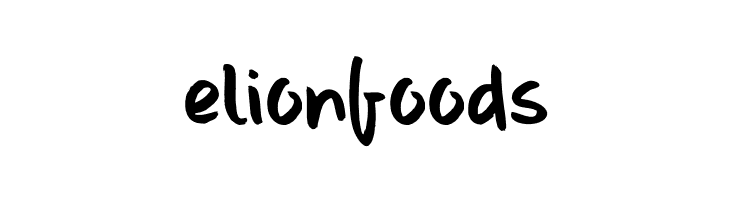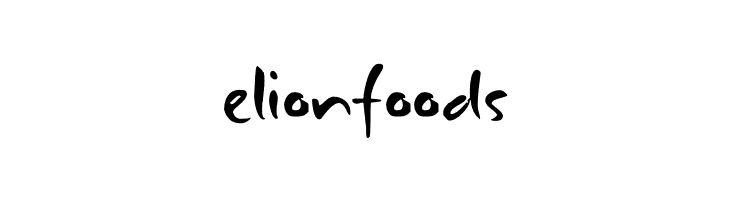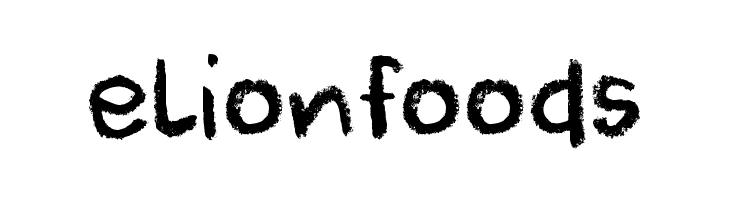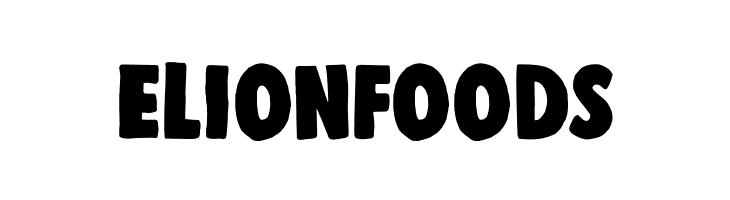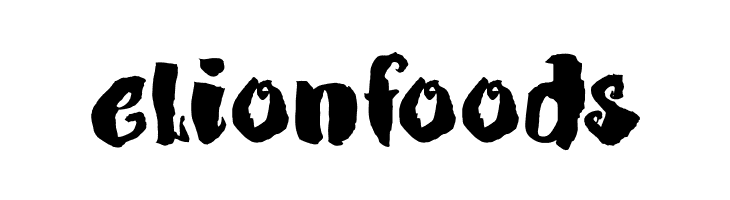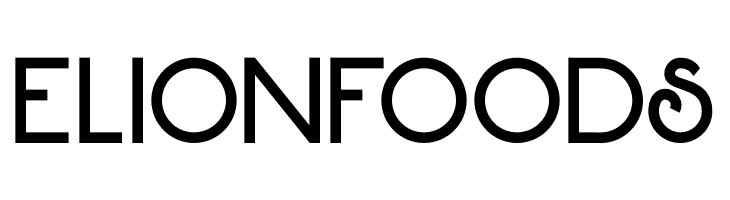
A playful, handwritten font with bold, brush-like strokes and a lively appearance.
A bold, brush-style font with dynamic strokes and flame-inspired numerals.
A playful, crayon-like font with a textured, hand-drawn appearance.
A bold, rounded font with a playful, retro style.
A bold, brush-style font with dynamic strokes and an artistic flair.
A hand-drawn, whimsical font with a playful yet sophisticated style.
A whimsical, hand-drawn font with spiral embellishments and uneven strokes.
An artistic, high-contrast serif font with a calligraphic style.
A geometric and modern font with clean lines and angular style.
A modern, geometric font with clean lines and a sleek aesthetic.